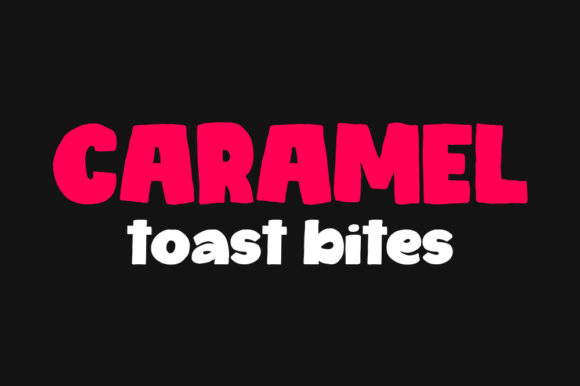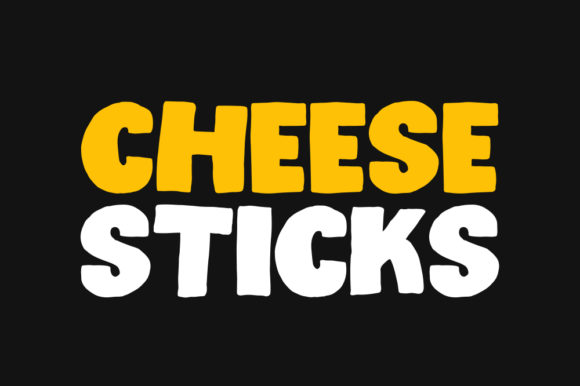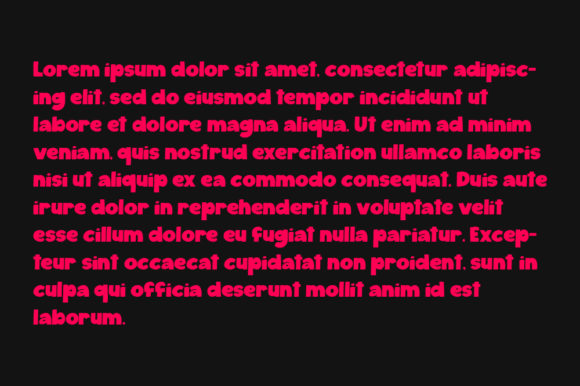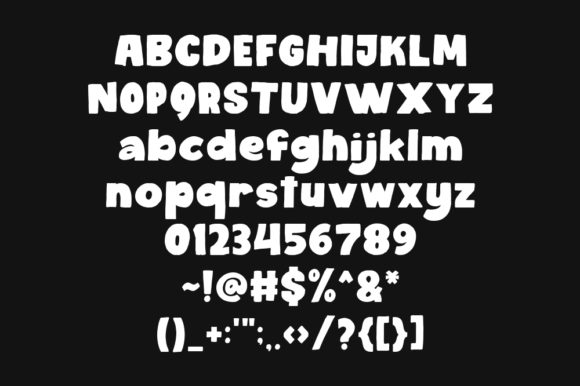
Bullate Font: Adding a Touch of Playfulness to Your Designs
Are you tired of using the same old fonts in your designs? Do you want to add a touch of playfulness and whimsy to your projects? Look no further than Bullate Font! This delightful hand-drawn sans serif font is perfect for designers and crafters who want to create eye-catching and engaging designs that stand out from the crowd.
What is Bullate Font?
Bullate Font is a playful hand-drawn sans serif font that is designed to bring a sense of fun and playfulness to your designs. With its childlike charm and enchanting display, this font is perfect for a wide range of projects, from kids’ and school projects to creative designs and crafts.
One of the unique features of Bullate Font is its hand-drawn design. Each letter has been carefully crafted to give it a personal and playful touch, making it perfect for designs that require a bit of personality. The font is also highly versatile, making it suitable for a wide range of applications, from digital designs to print materials.
Key Features of Bullate Font
So, what makes Bullate Font so special? Here are some of its key features:
- Playful and whimsical design: Bullate Font has a unique and playful design that is sure to capture the attention of your audience.
- Hand-drawn sans serif font: The font’s hand-drawn design gives it a personal touch, making it perfect for designs that require a bit of character.
- Highly versatile: Bullate Font is suitable for a wide range of applications, from digital designs to print materials.
- Perfect for kids’ and school projects: The font’s childlike charm makes it perfect for kids’ and school projects, such as posters, flyers, and worksheets.
How to Use Bullate Font in Your Designs
So, how can you use Bullate Font in your designs? Here are a few ideas to get you started:
- Kids’ and school projects: Use Bullate Font to create fun and engaging posters, flyers, and worksheets for kids.
- Digital designs: Add a touch of playfulness to your digital designs, such as social media graphics, blog posts, and email newsletters.
- Print materials: Use Bullate Font to create eye-catching print materials, such as brochures, flyers, and business cards.
- Crafts and DIY projects: Add a personal touch to your crafts and DIY projects, such as handmade cards, gift tags, and scrapbook pages.
Tips for Using Bullate Font Effectively
Here are a few tips for using Bullate Font effectively in your designs:
- Use it sparingly: While Bullate Font is playful and fun, it can be overwhelming if used too much. Use it sparingly to add a touch of personality to your designs.
- Pair it with other fonts: Experiment with pairing Bullate Font with other fonts to create a unique and visually appealing design.
- Experiment with colors: Don’t be afraid to experiment with different colors to add an extra touch of personality to your designs.
| Font Name | Bullate Font |
In conclusion, Bullate Font is a playful and versatile font that is perfect for designers and crafters who want to add a touch of personality to their designs. With its hand-drawn design and childlike charm, this font is sure to capture the attention of your audience and make your designs stand out from the crowd. So why not give it a try and see how it can add a touch of playfulness to your next project?
Whether you’re working on a kids’ project, a digital design, or a print material, Bullate Font is a great choice. Its highly versatile design makes it suitable for a wide range of applications, and its playful and whimsical design is sure to bring a smile to your audience’s face.